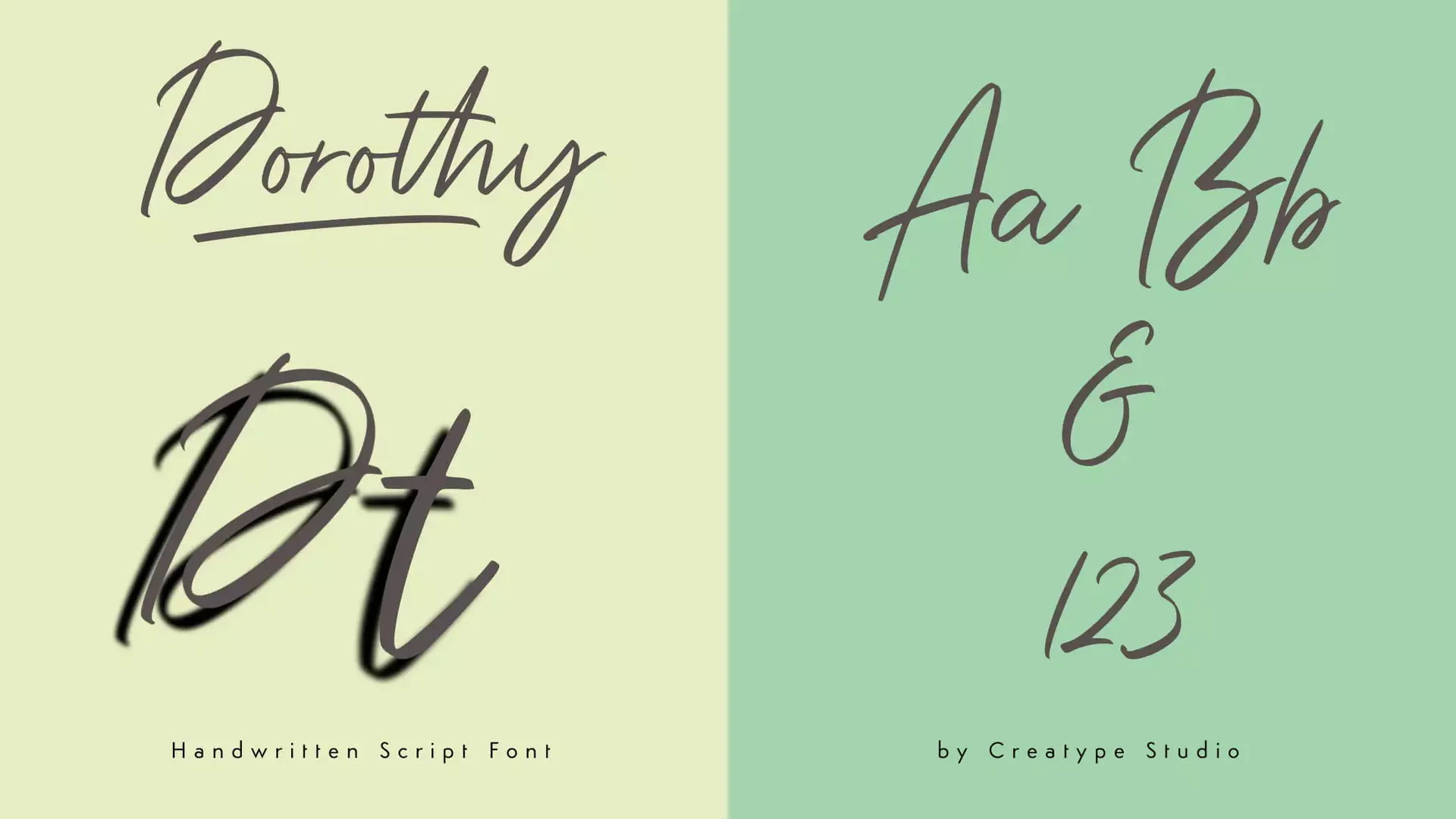
About Dorothy Font
Utilizing free script fonts (or gratis cursive fonts) to design your layout will give you a unique and flexible aesthetic. Whatever you’re trying to achieve there’s an appropriate script font. There are so many options out there, it may be difficult to decide what to pick. Presenting Dorothy Script font!
Dorothy is a Handwritten Script typeface by Creatype Studio. With its precise strokes and handwritten font, Dorothy is among the most prestigious script fonts. There’s a swash effect on this font, which creates a font that looks striking, modern elegant, fashionable, and, of course, extravagant. There are PUA encoded characters. This font is accessible in Adobe Illustrator, Adobe Photoshop, Adobe InDesign, even work on Microsoft Word. Dorothy Handwritten Script Font Download is available here.
Are you looking for a handwritten signature font? Dorothy Handwritten Script is an excellent script font that is free with a natural and convincing flow and design.
Usage Of Dorothy Handwritten Script
Font Combination
Dorothy font goes well with any sans-serif or serif typeface. Libre Baskerville, Montserrat, Open Sans, Simplo, Blacker, Sabon goes well with Dorothy. Use Dorothy for Big text like heading or subheadings.
WHAT TYPE OF FONT IS Dorothy?
Dorothy is a Handwritten Script typeface by Creatype Studio.